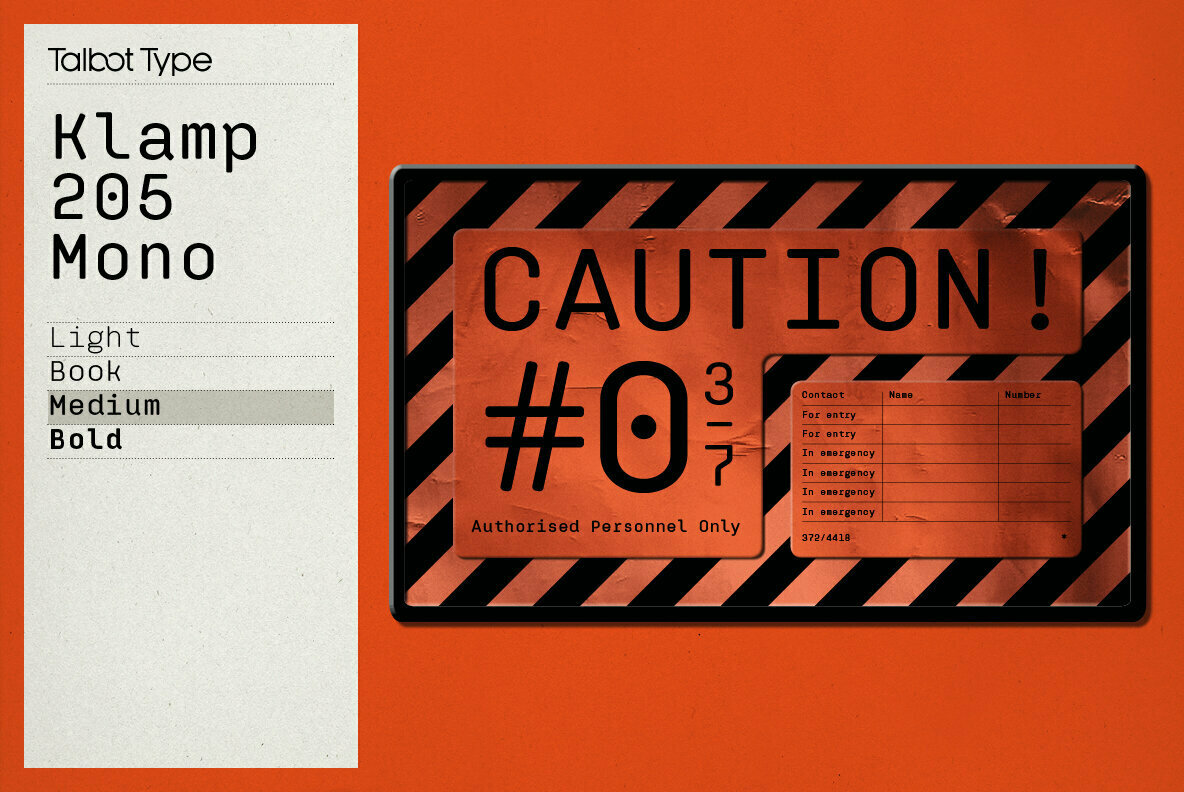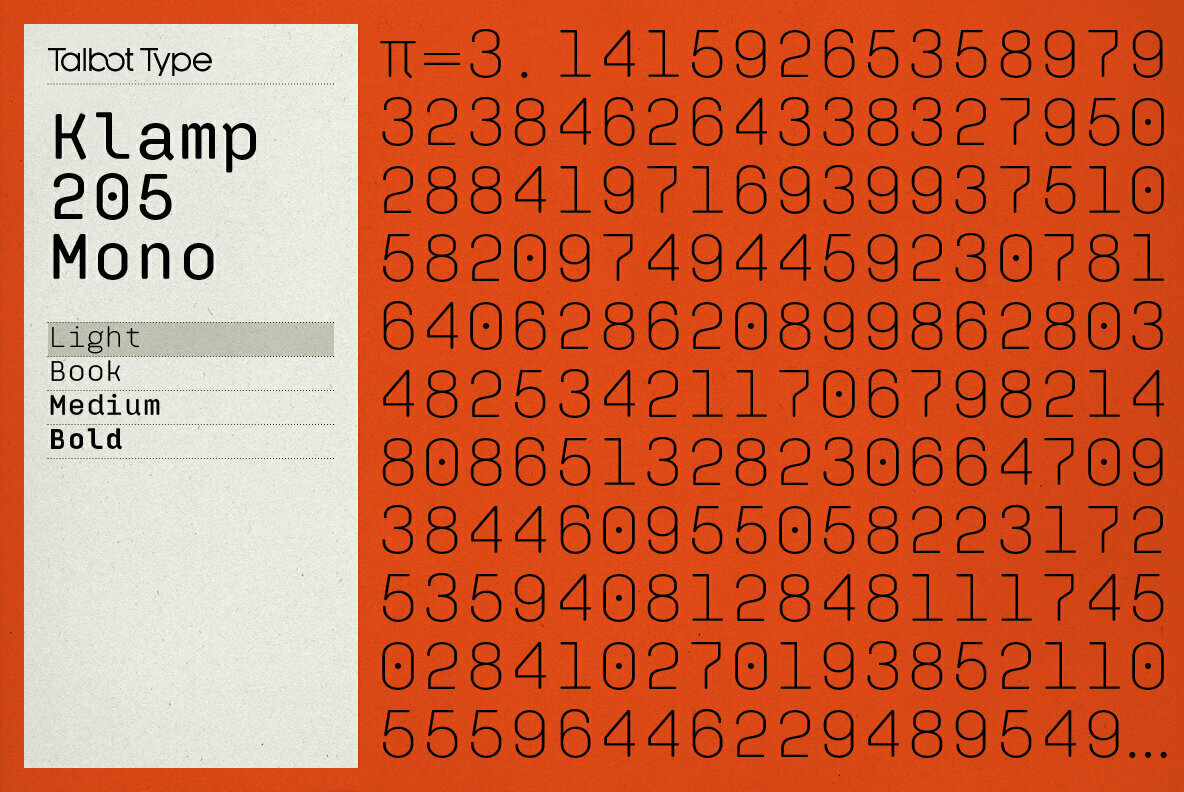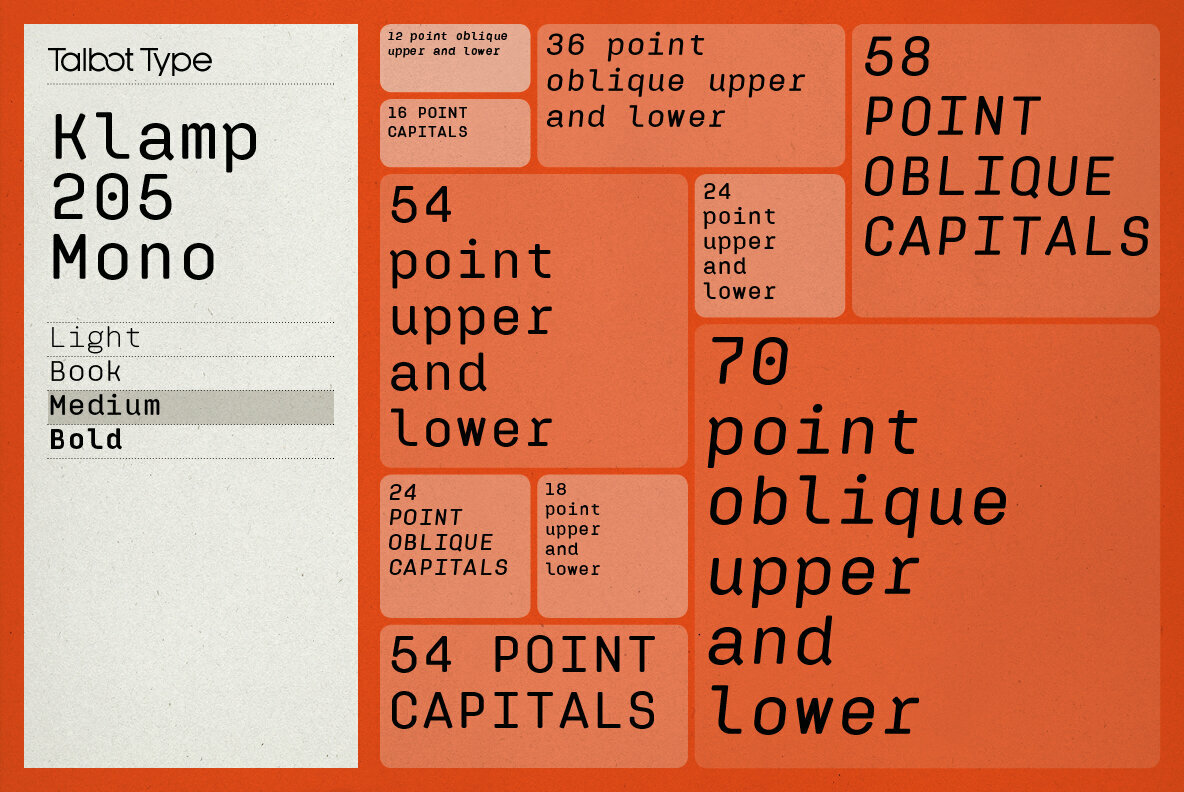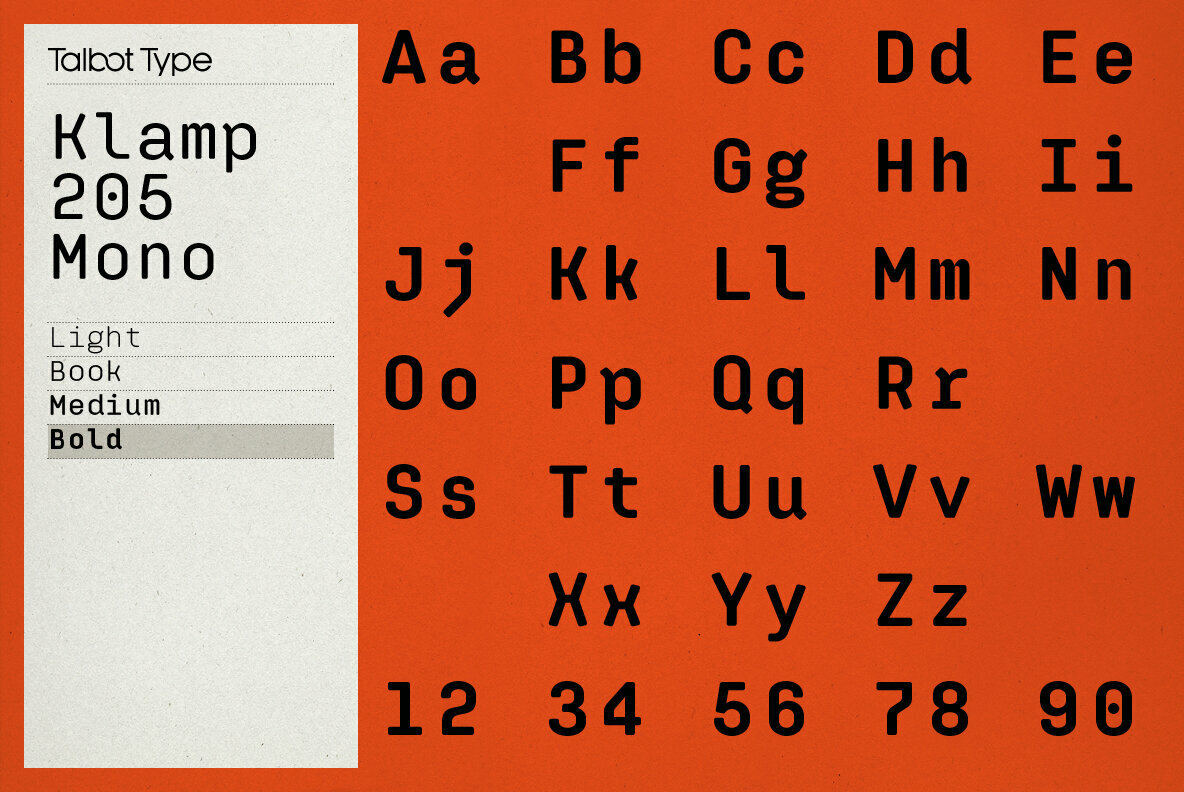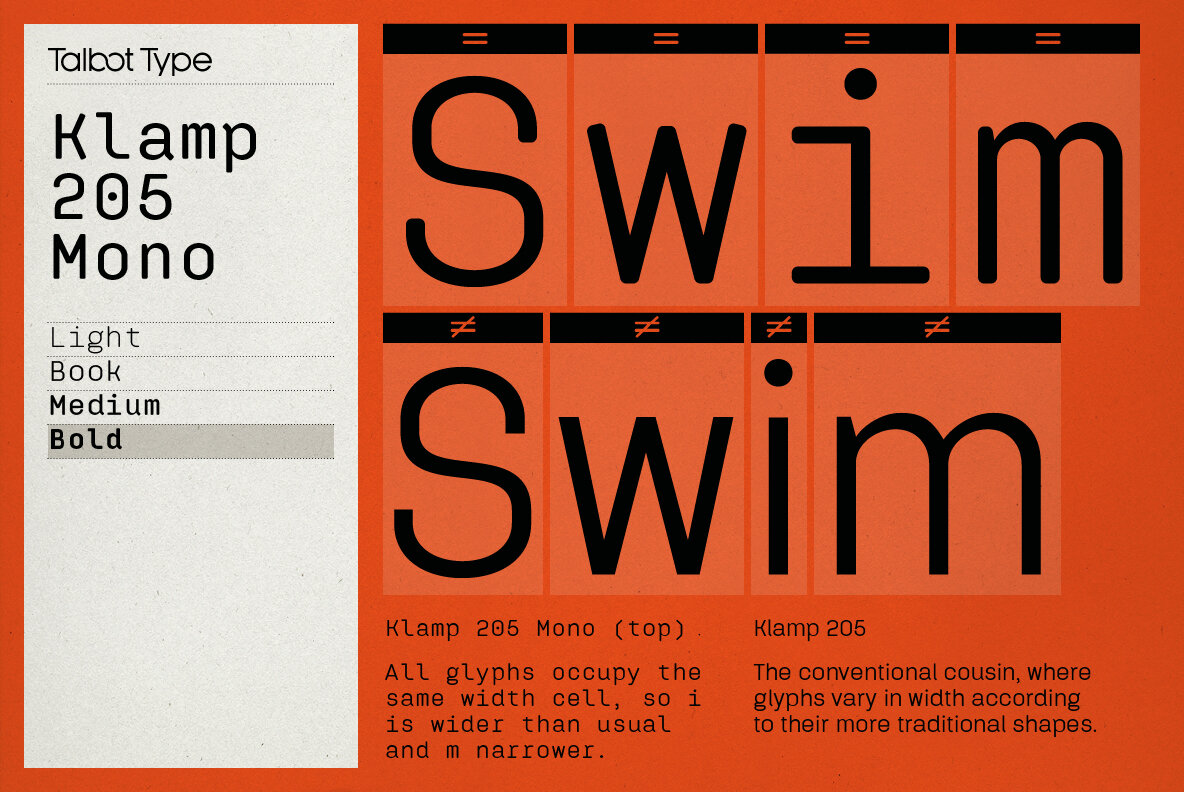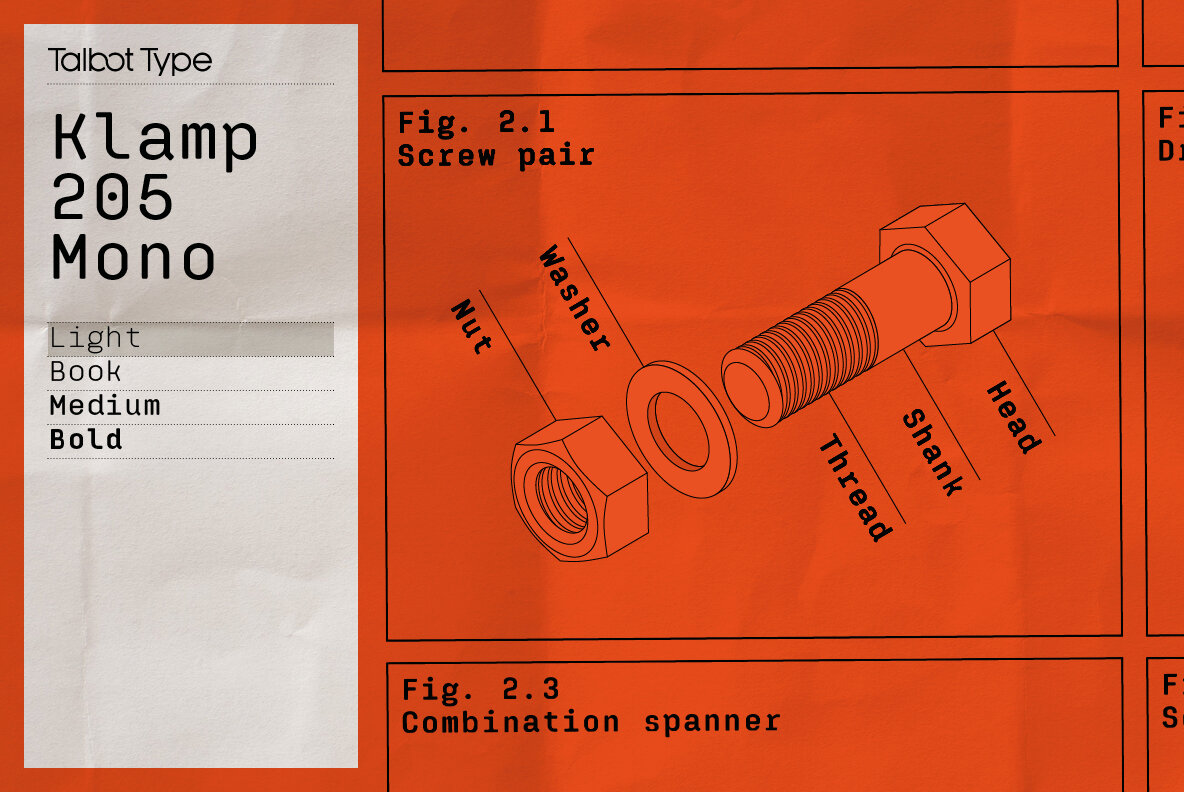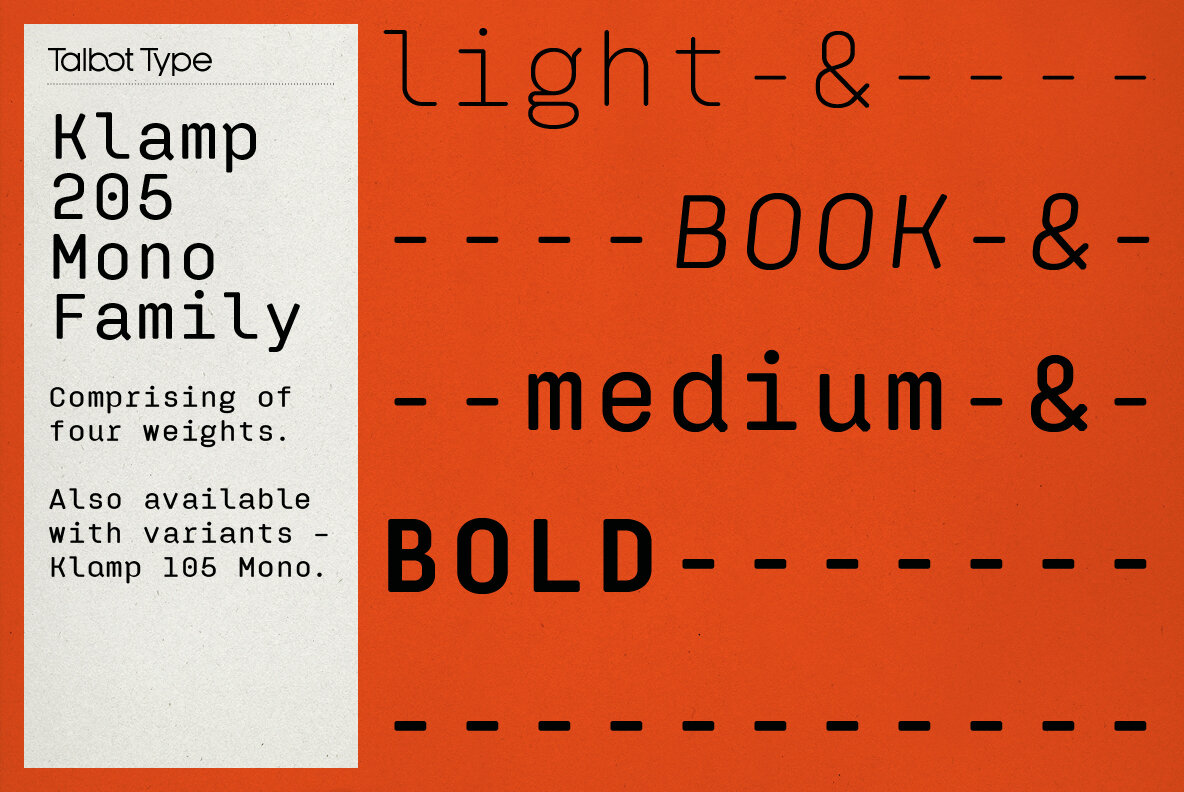
Klamp 205 Mono Font
Talbot Type Klamp 205 Mono is a monospaced variation of Talbot Type Klamp 205. The clean and pure geometry of Klamp 205 makes it highly suitable for adaptation to this monospaced variant. It has an even look and retains its legibility at very small sizes.
Klamp 205 Mono is available in a family of four weights and features an extended character set to include accents for Central European languages. Klamp 105 Mono, with some character variations, is also available as a monospaced variant of Klamp 105.